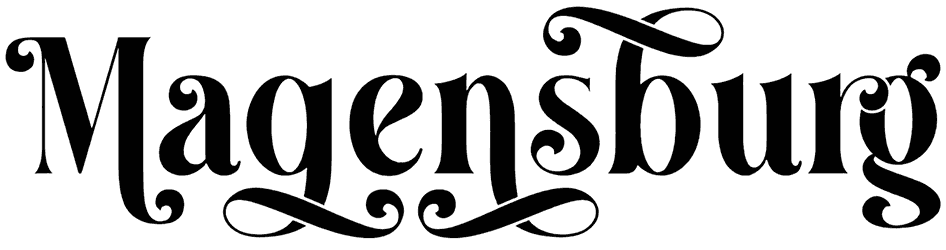
Magensburg Font
Magensburg is a luxury serif font, with professional and glamorous glyphs that add a lot to the texture of its design. If you would prefer one very special, luxurious typography that is sophisticated and modest, here it is!
The set of letterforms is fixed in perfect order; they don’t contain any punctuation, but it won’t affect the development. Branding, logos, cards, invitations, posters, and banners are a few places to carry out this stunning font.
To get results like the preview just type M.8ag.3en.3sb.6urg
Hallo alle! Magensburg is an ethnic arches inspired display font. This font was carefully crafted and inspired ethnic arches in the world. In general, it creates a luxurious and mysterious look in design.
Super Easy to Use alternates – It’s OpenType support but you can easly call alternates character using special combination like A.2 R.4 h.3 etc so you dont need special software